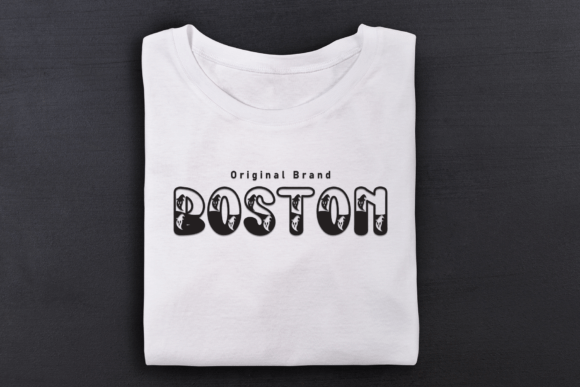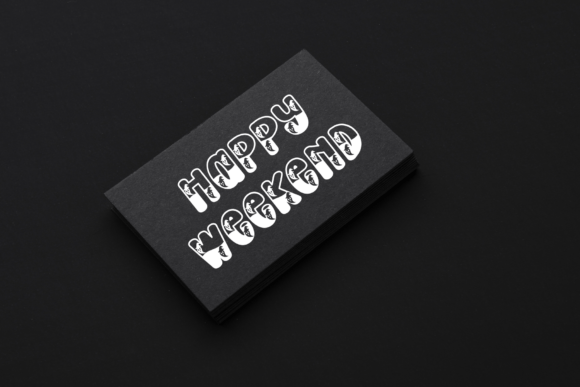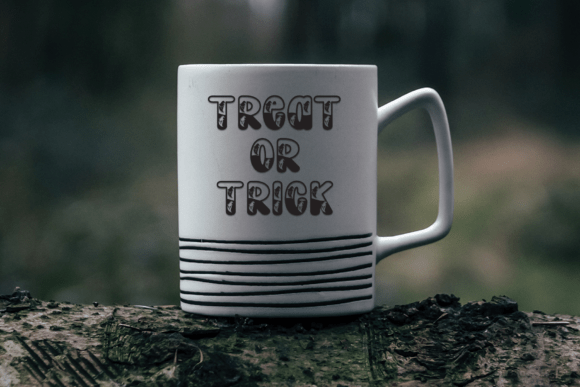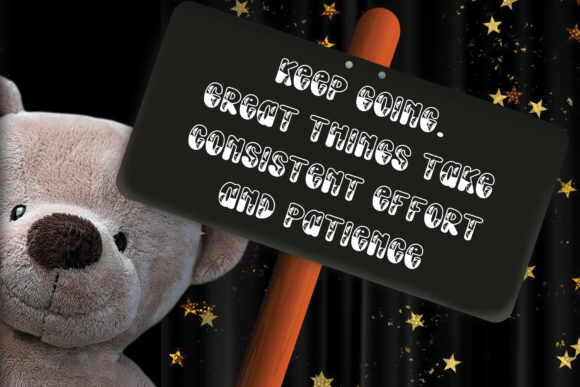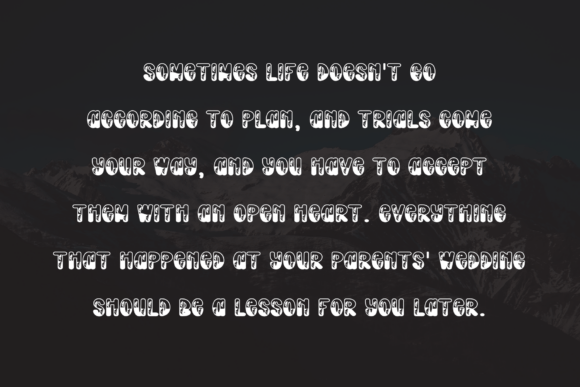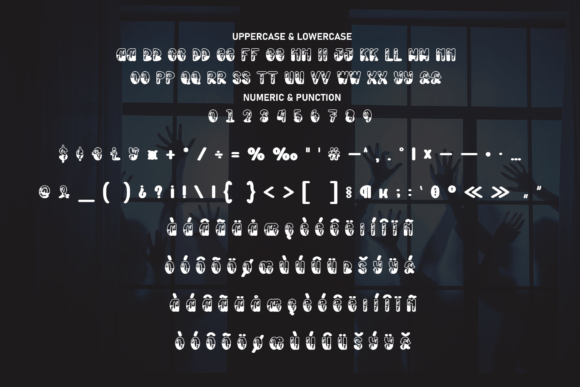
Unleash the Magic of Ghost Midnight Font: A Hand-Crafted Showcase Font
Are you tired of using the same old fonts for your designs? Look no further! Introducing Ghost Midnight Font, a unique and captivating font that will add a touch of magic to your creations. This hand-crafted showcase font is specifically engineered to ignite your creative spark, energize, and enchant with its vivacious and playful strokes.
The Perfect Blend of Whimsy and Sophistication
Ghost Midnight Font is a character-rich aesthetic that injects a breath of warmth into wedding invitations, card designs, and other creative projects. Its refined whimsy and seductive enticement make it the ideal font for designers and crafters who want to add a touch of cheerfulness and elegance to their work. Whether you’re designing a wedding invitation, a greeting card, or a marketing material, this font is sure to make your project stand out.
What Makes Ghost Midnight Font So Special?
So, what sets Ghost Midnight Font apart from other fonts? Here are a few features that make it a must-have for designers and crafters:
- Hand-crafted with love: Each letter and stroke has been carefully crafted to ensure a unique and personal touch.
- Vivacious and playful strokes: The font’s playful strokes add a touch of energy and excitement to any design.
- Character-rich aesthetic: The font’s character-rich design ensures that every letter and symbol is a work of art.
- Refined whimsy: The font’s refined whimsy adds a touch of sophistication and elegance to any design.
Ghost Midnight Font is versatile and can be used for a variety of projects, including:
- Wedding invitations: Add a touch of romance and whimsy to your wedding invitations.
- Card designs: Create beautiful and unique greeting cards for any occasion.
- Marketing materials: Add a touch of elegance and sophistication to your marketing materials.
- Branding: Use Ghost Midnight Font to create a unique and memorable brand identity.
Why Choose Ghost Midnight Font?
With so many fonts available, why choose Ghost Midnight Font? Here are a few reasons:
- Unique and exclusive: Ghost Midnight Font is a one-of-a-kind font that will make your designs stand out.
- High-quality design: The font is carefully crafted to ensure a high-quality design that will impress.
- Boost your creativity: Ghost Midnight Font is designed to inspire and boost your creativity to unimaginable heights.
Get Ready to Unleash Your Creativity
Are you ready to take your designs to the next level? With Ghost Midnight Font, you can:
- Experiment with new designs: The font’s unique and playful strokes will inspire you to try new things.
- Push the boundaries of creativity: Ghost Midnight Font will give you the confidence to push the boundaries of what’s possible.
- Create something truly unique: The font’s exclusive design ensures that your creations will be one-of-a-kind.
Ghost Midnight Font is a hand-crafted showcase font that is sure to ignite your creative spark. With its vivacious and playful strokes, refined whimsy, and seductive enticement, it’s the perfect font for designers and crafters who want to add a touch of magic to their creations. Whether you’re designing a wedding invitation, a greeting card, or a marketing material, Ghost Midnight Font is the ideal choice. So why wait? Unleash the captivating charm of Ghost Midnight Font and take your designs to new heights!